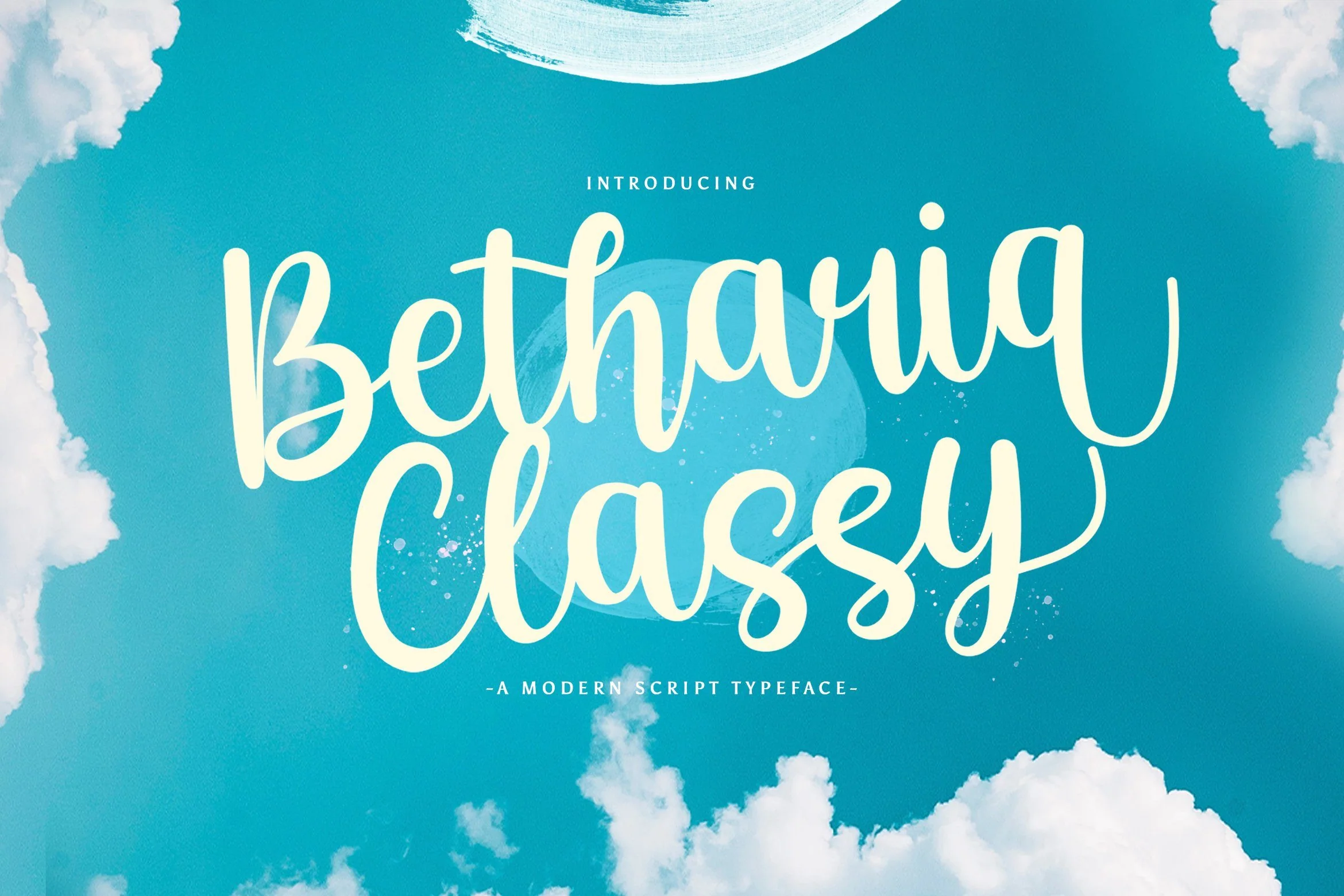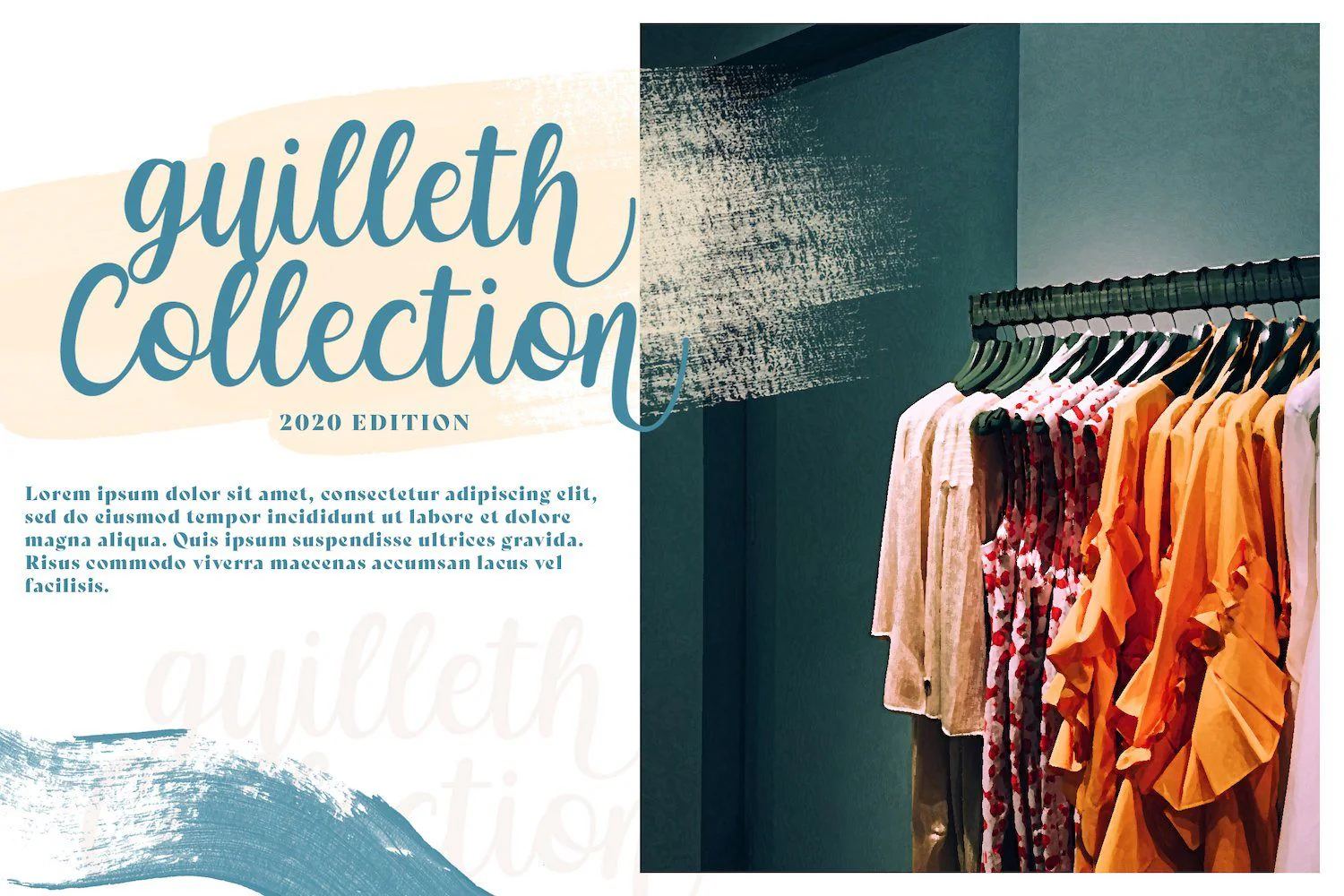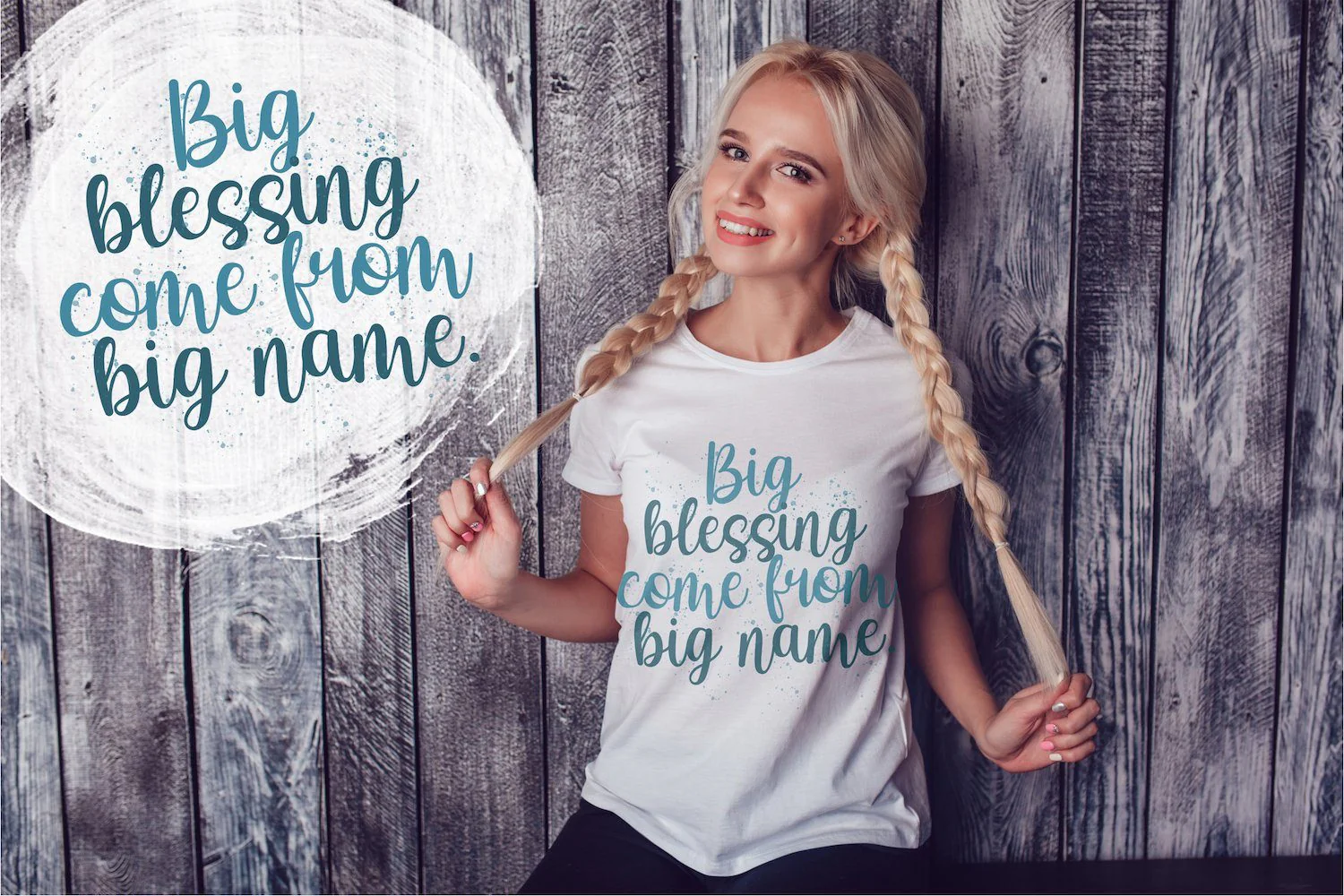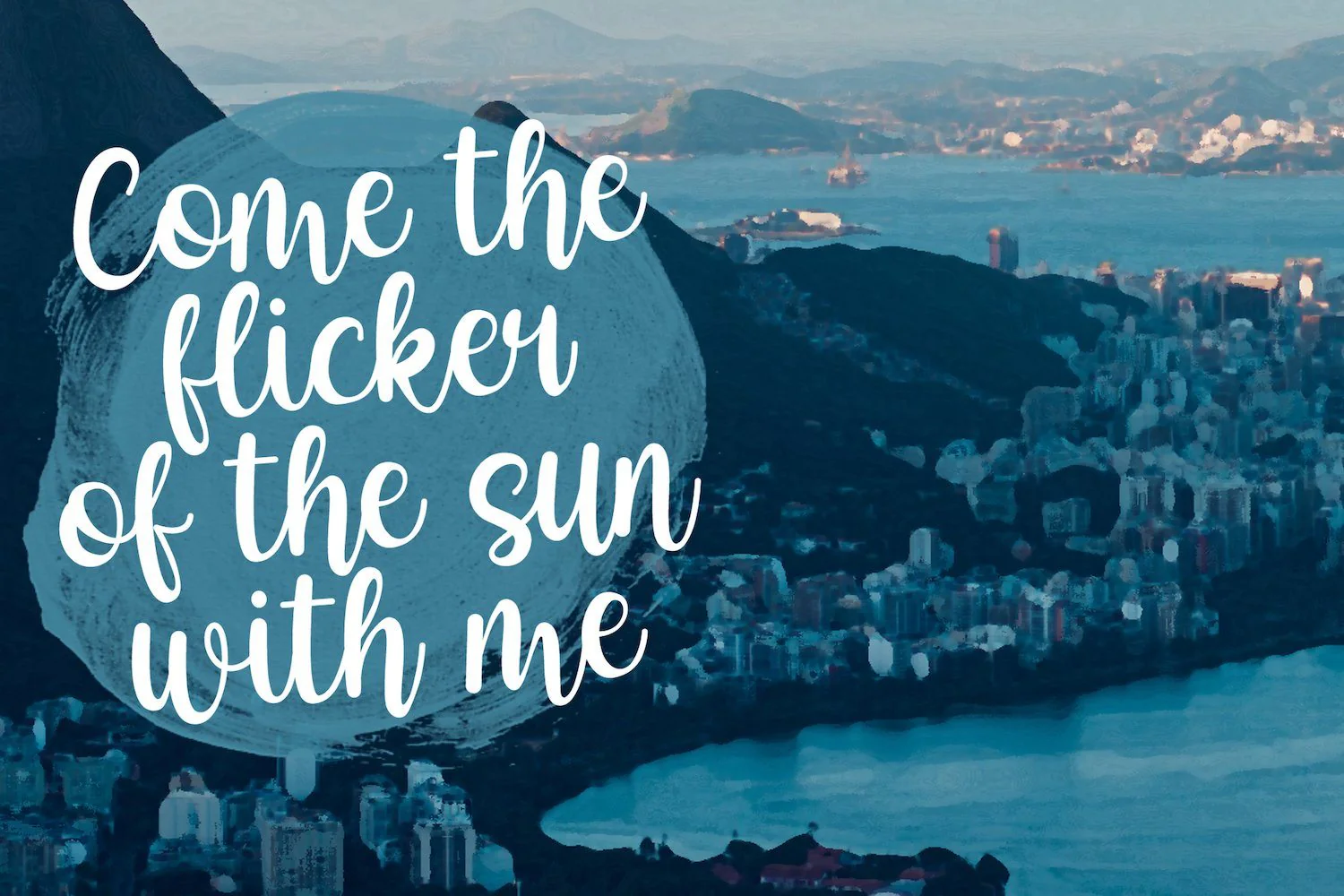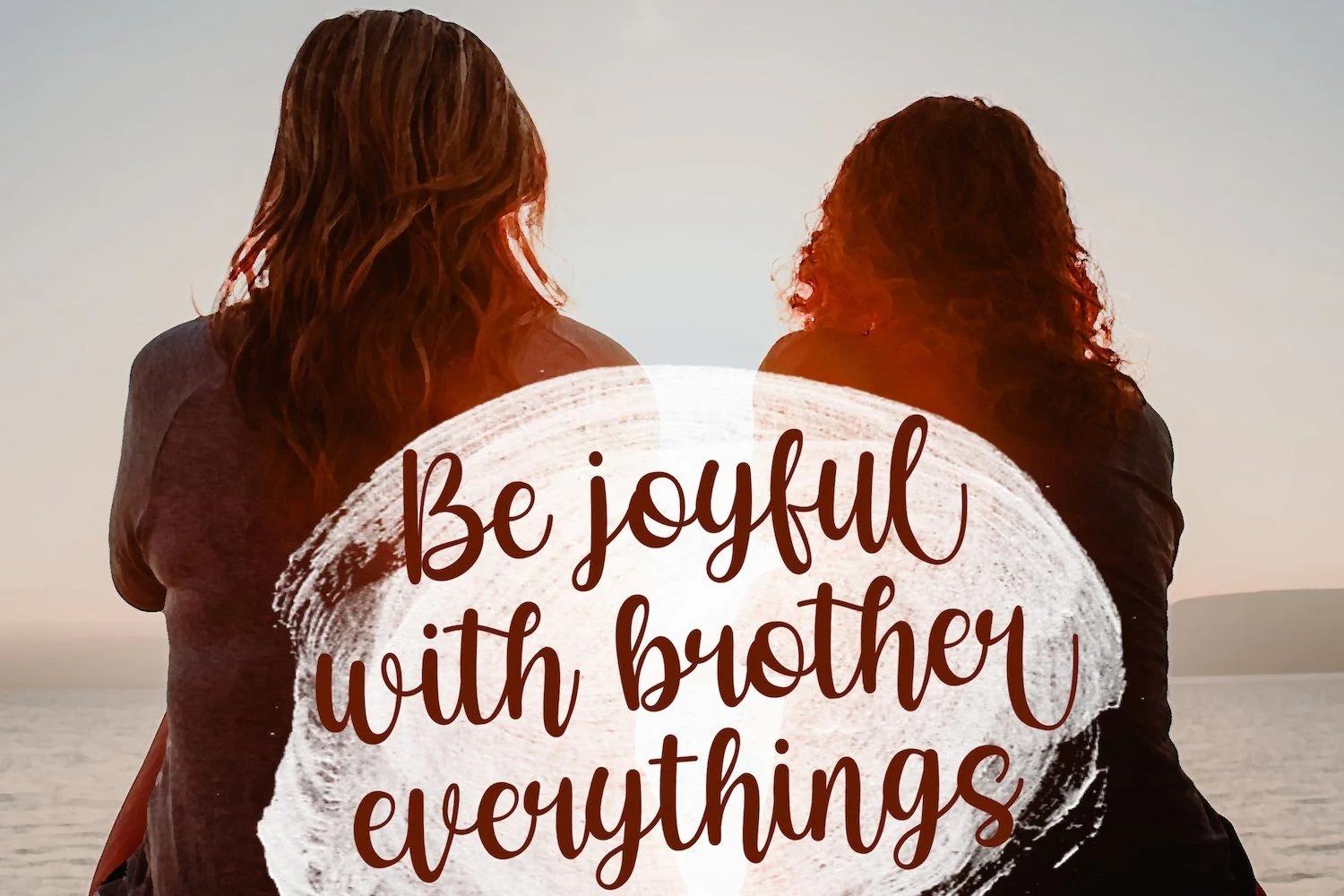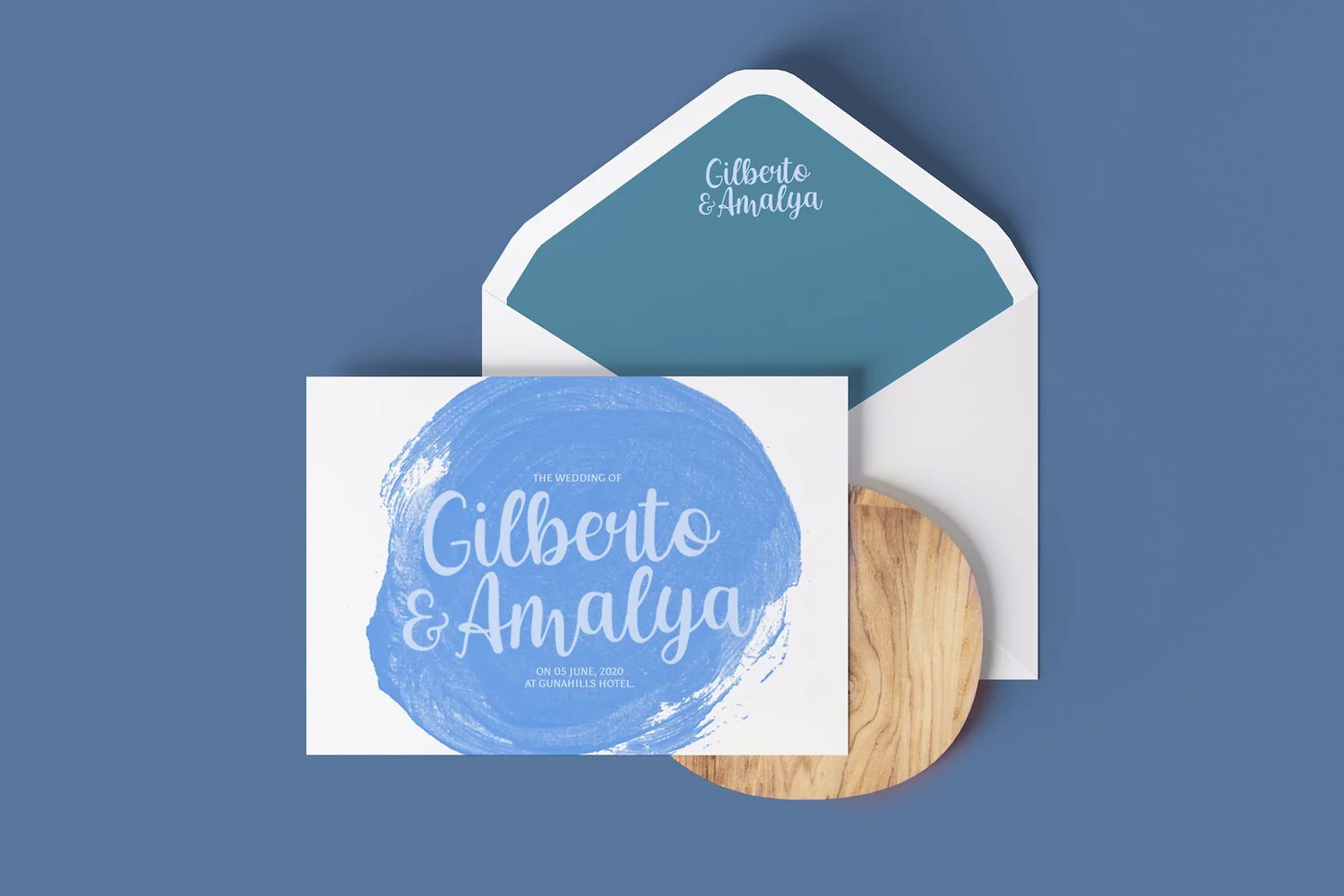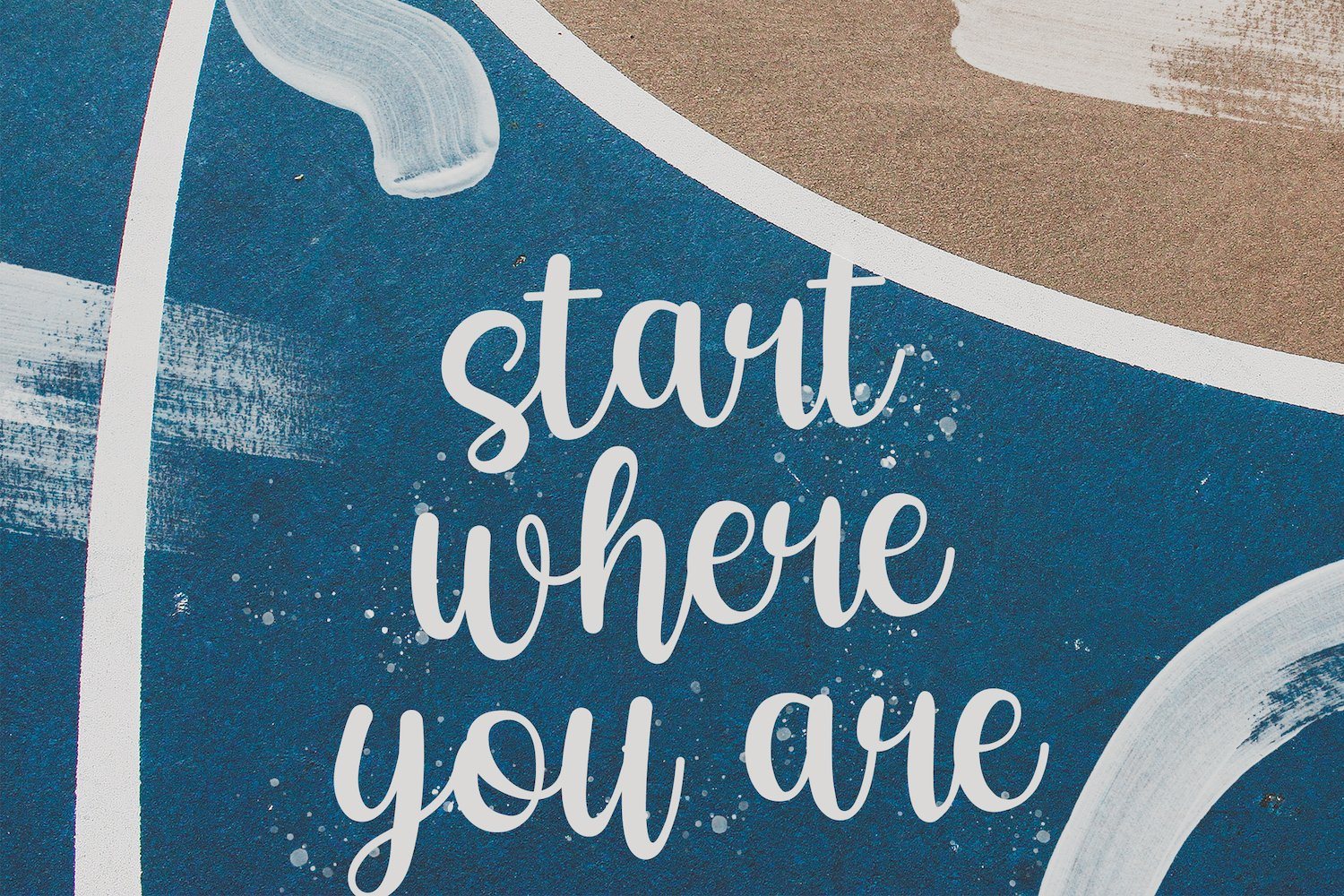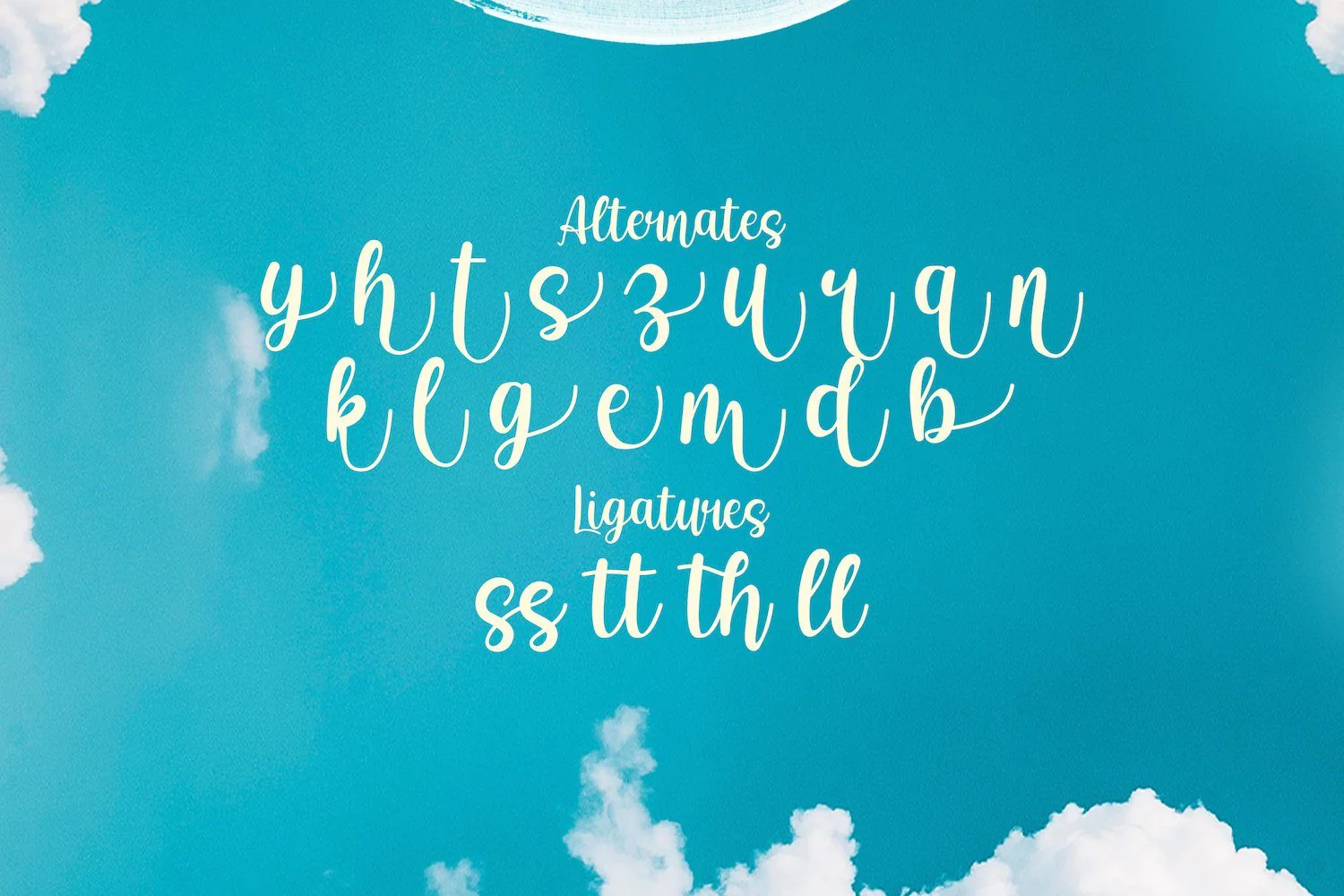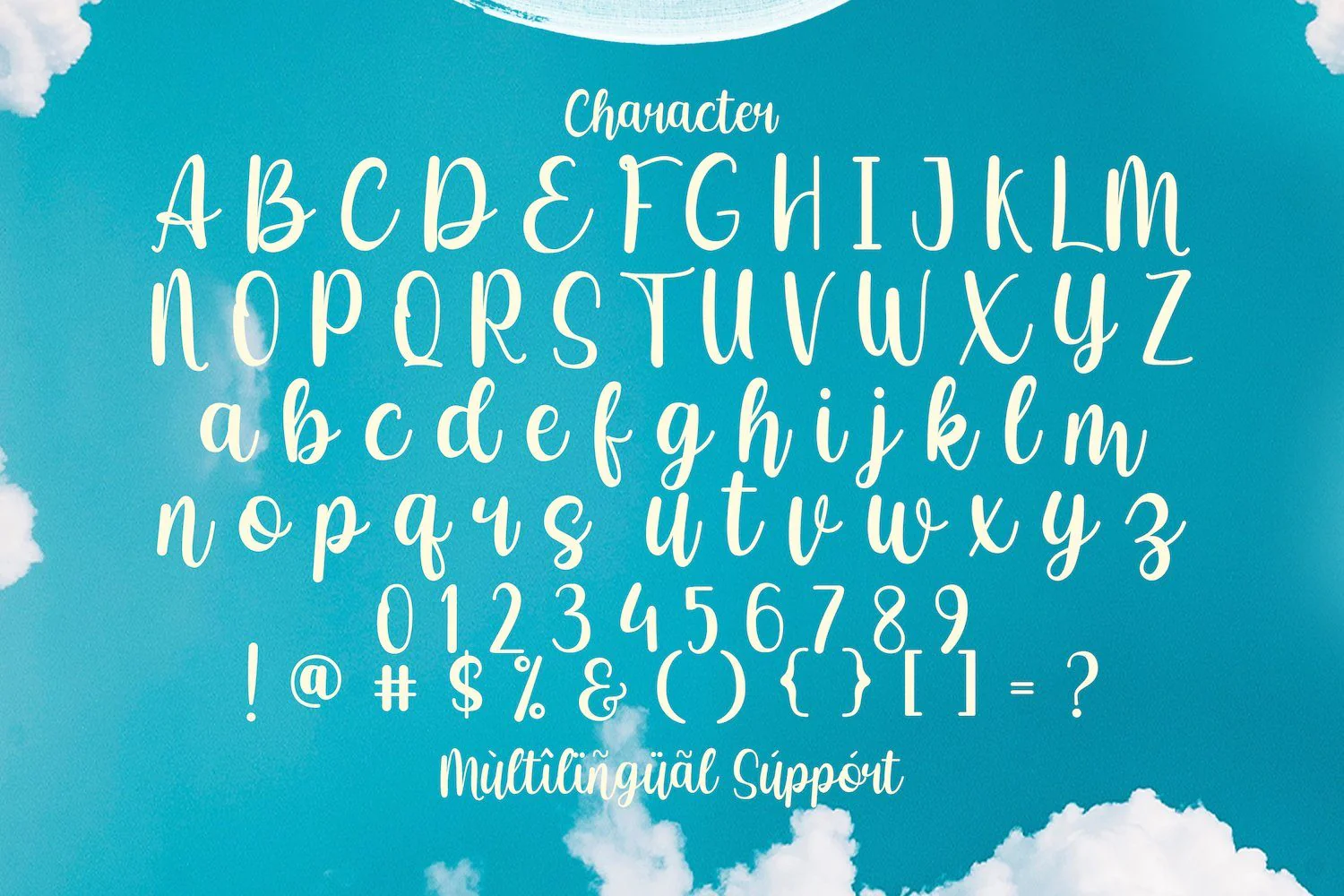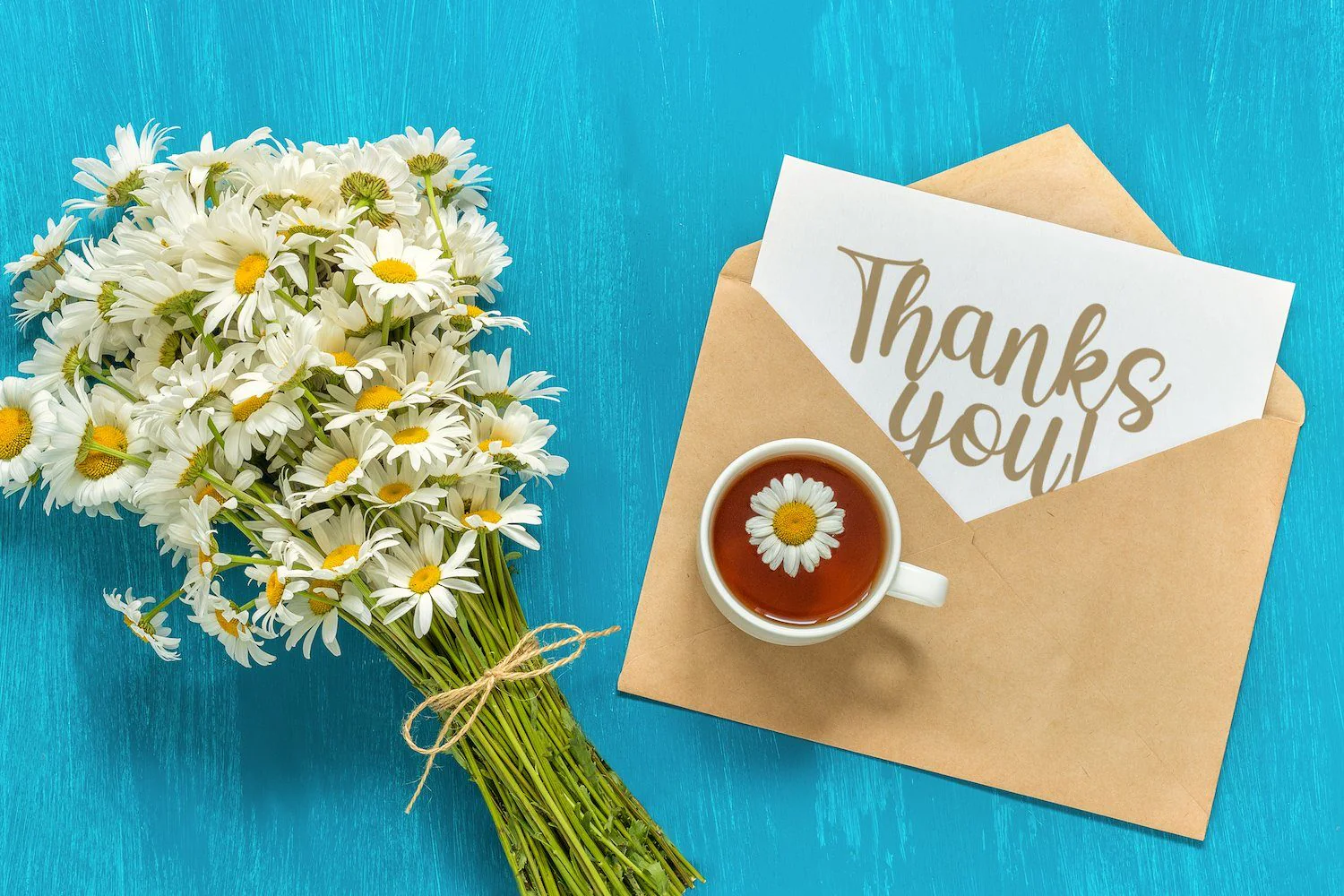
Betharia Classy - Modern Script Font
Introducing Betharia Classy - Modern Script Font
Betharia Classy is a modern script font. It will elevate a wide range of design projects to the highest level, be it branding, headings, wedding designs, invitations, signatures, logos, labels, and much more! This font is PUA encoded which means you can access all of the glyphs and swashes with ease!
Introducing Betharia Classy - Modern Script Font
Betharia Classy is a modern script font. It will elevate a wide range of design projects to the highest level, be it branding, headings, wedding designs, invitations, signatures, logos, labels, and much more! This font is PUA encoded which means you can access all of the glyphs and swashes with ease!